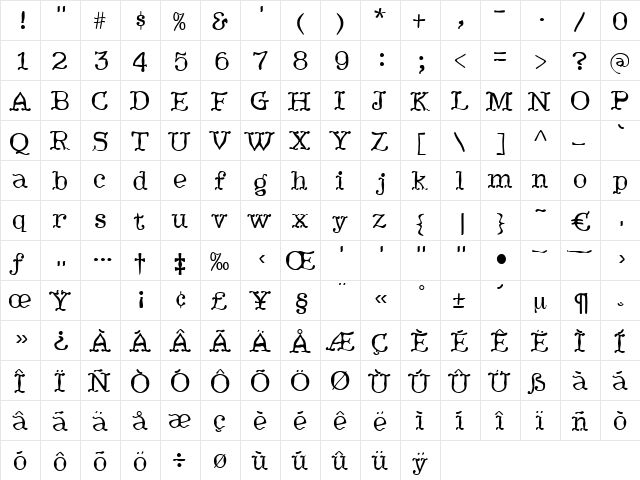
Jukebox Regular Font Preview
Jukebox Regular
Jukebox Regular Font Details
Design Context for Jukebox Typeface
Jukebox is a composed and adaptable typeface that performs quietly and consistently across a wide range of design contexts.